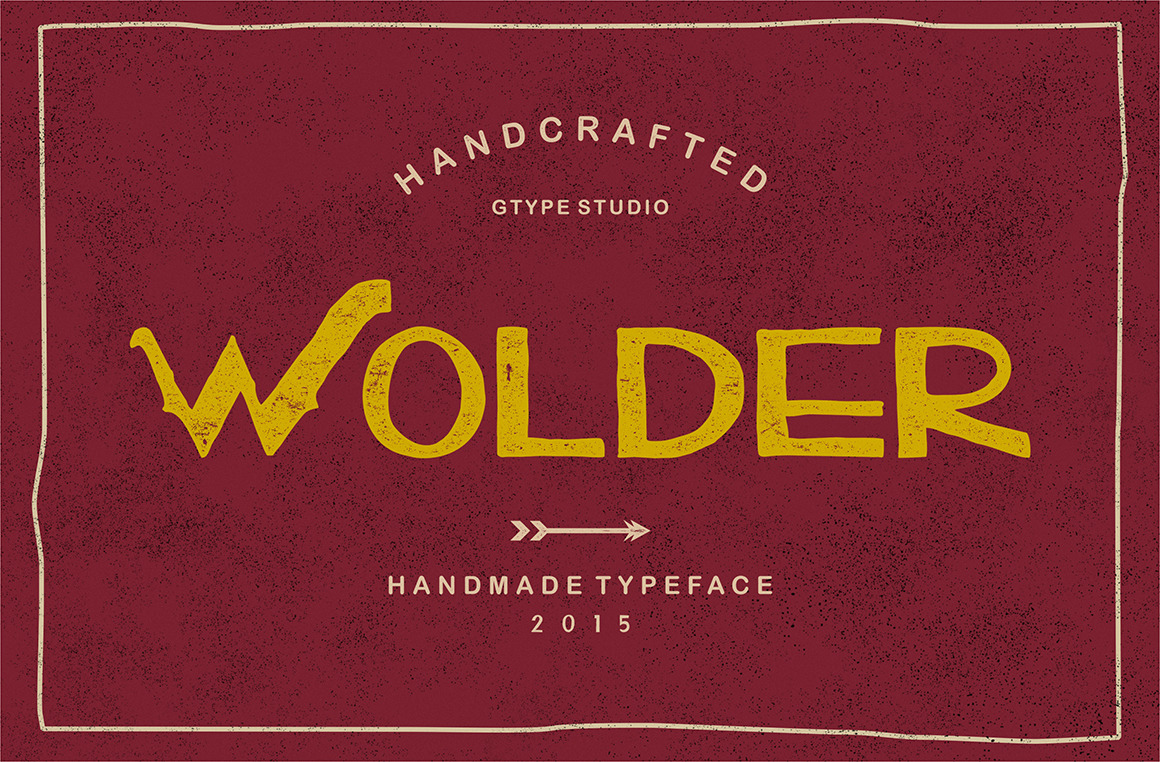
Wolder Typeface
Wolder Typeface is hand drawn font with minimalistic and vintage feel character set.This font good for vintage design, badges, t-shirt, logo, labels, posters and etc. Features: Uppercase -Lowercase -Numerals -Basic punctuations Available in .OTF and .TTF formats. Thanks!